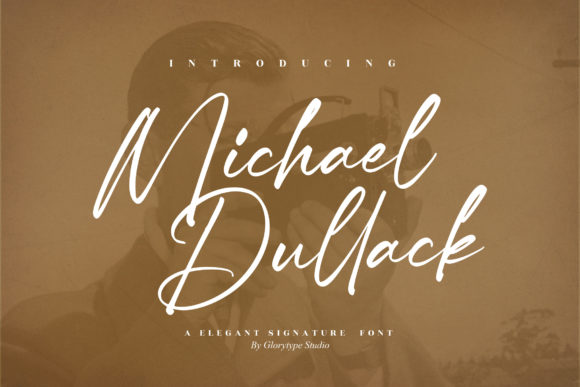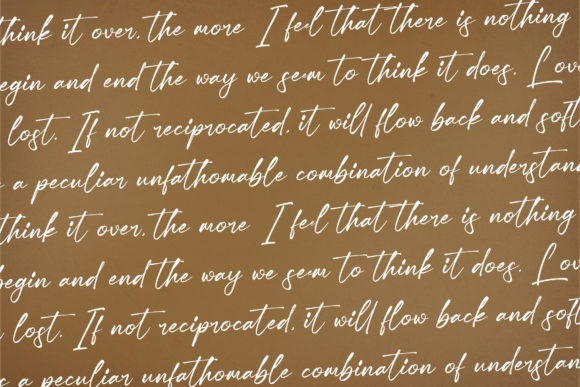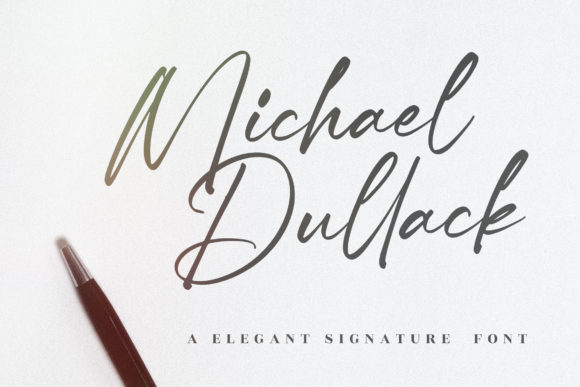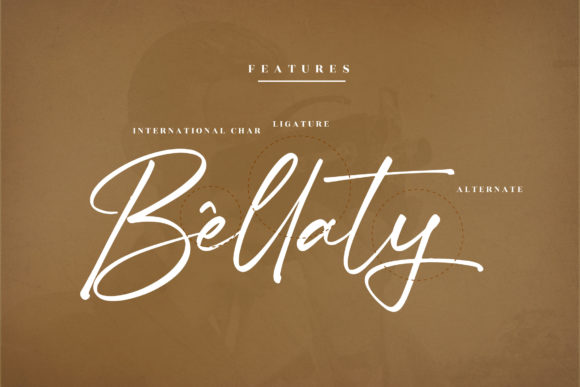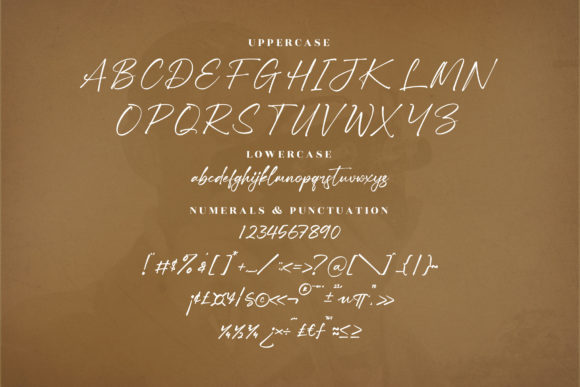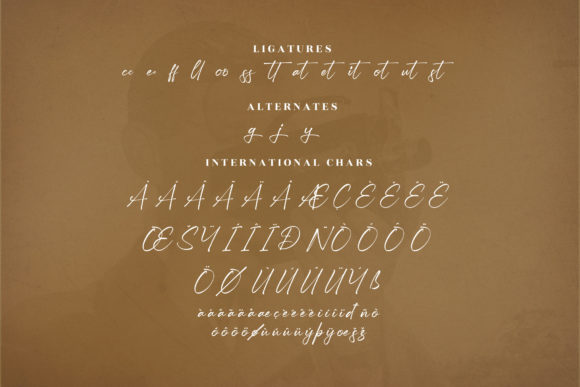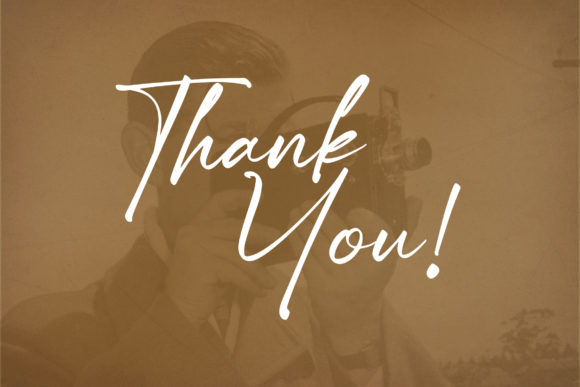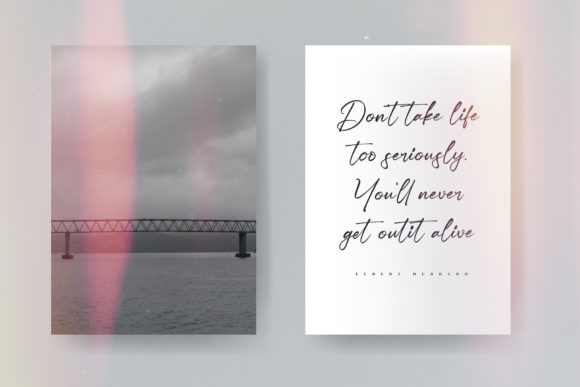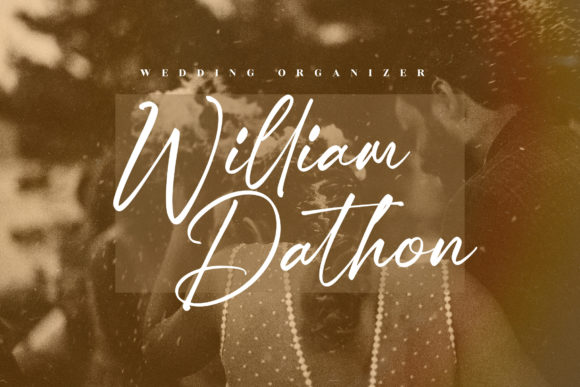
Michael Dullack Font
About Michael Dullack Font
Michael Dullack – Elegant Signature Font suitable for any projects such as: logos, branding projects, homeware designs, product packaging, mugs, quotes, posters, shopping bags, t-shirts, book covers, name card, invitation cards, greeting cards, labels, photography, watermark, special events, and all your other lovely projects that need a beautiful script taste.